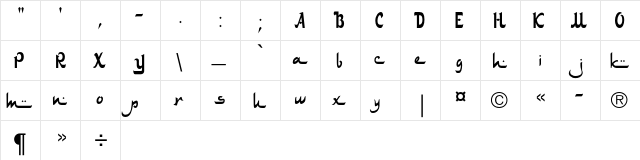
Arabskij Regular
Design Context for Arabskij Typeface
Arabskij is a composed and adaptable typeface that performs quietly and consistently across a wide range of design contexts.